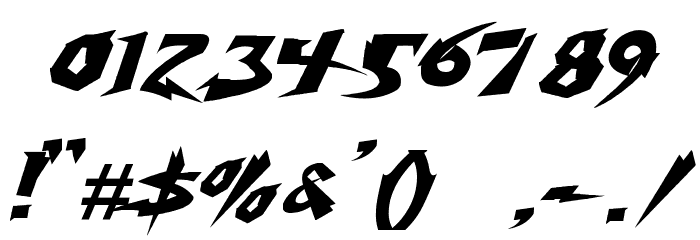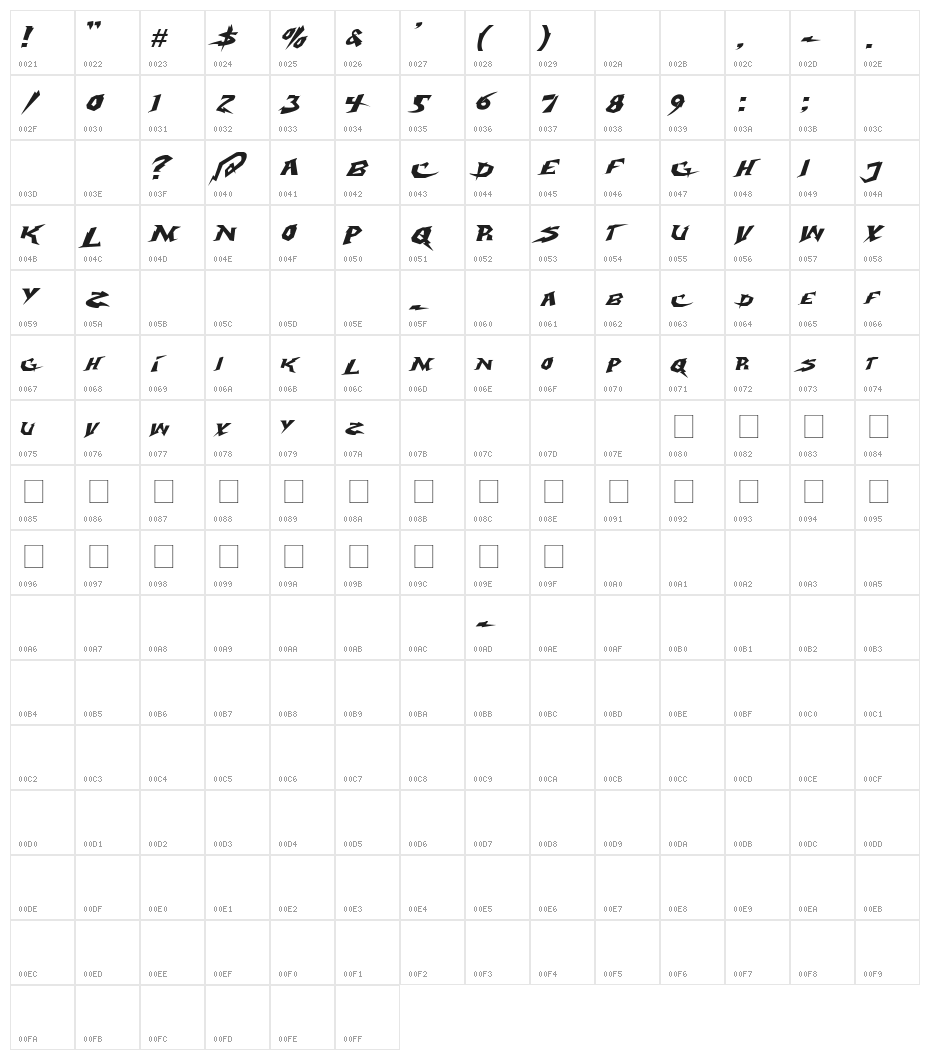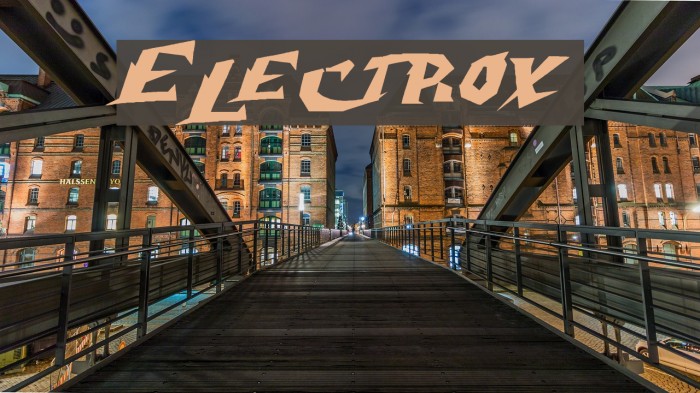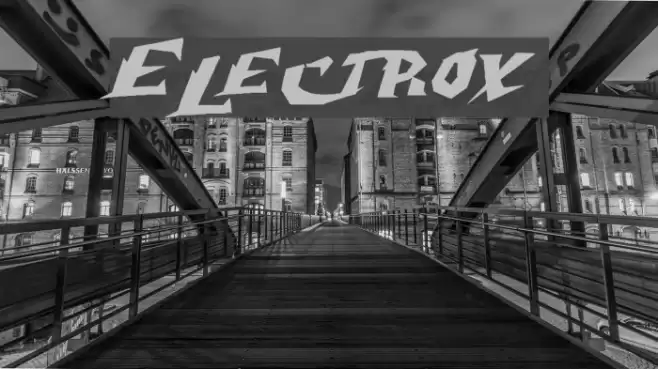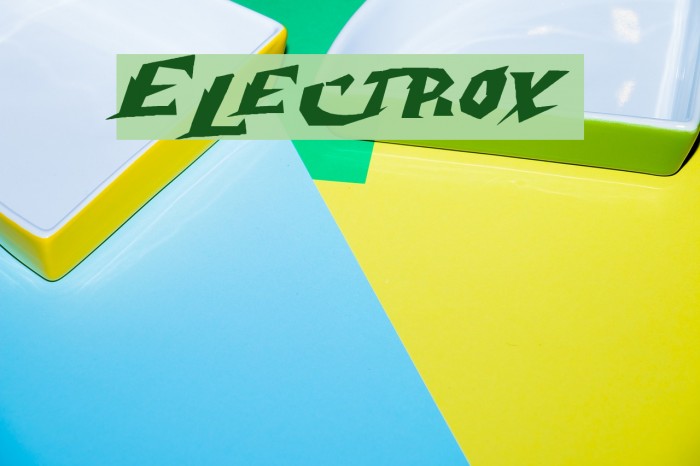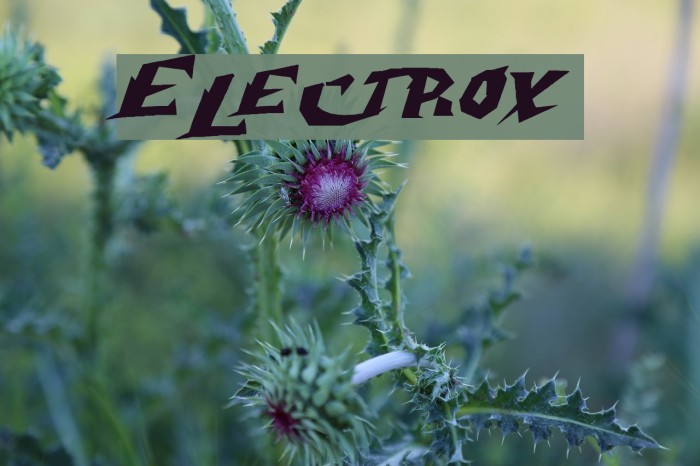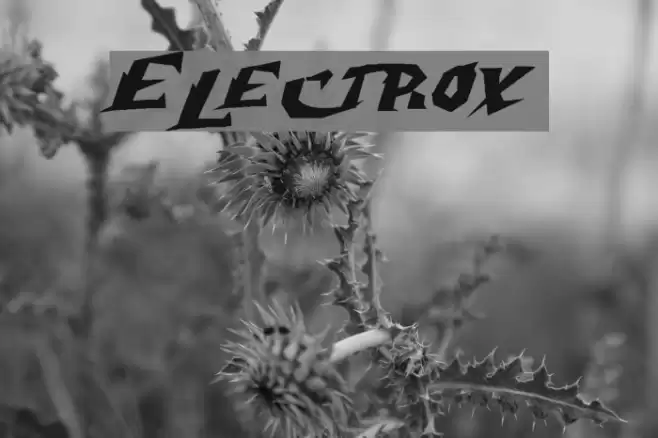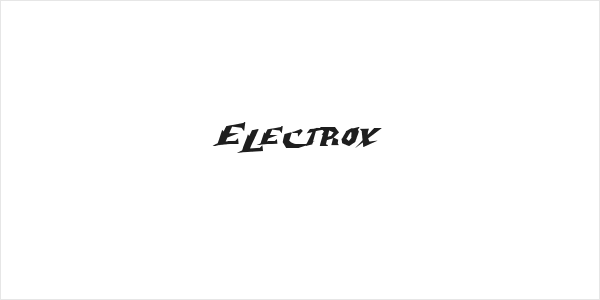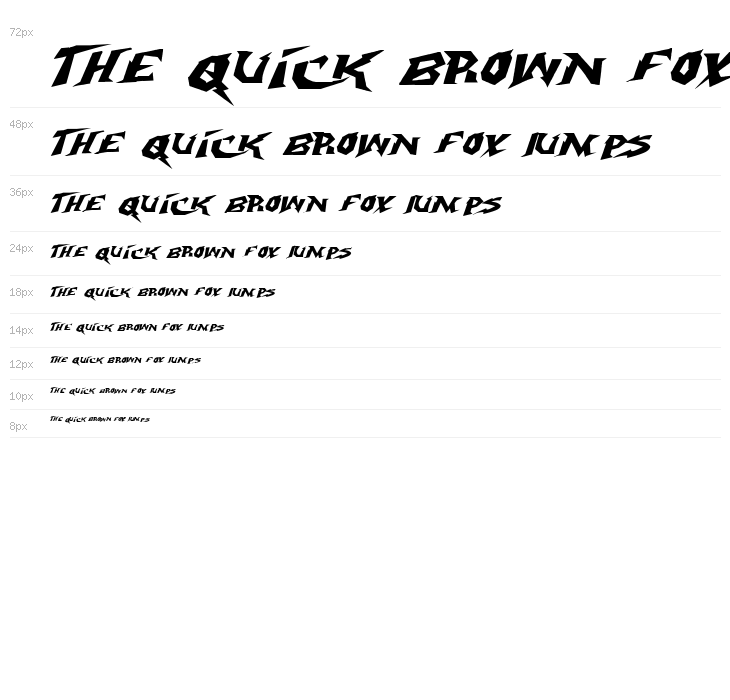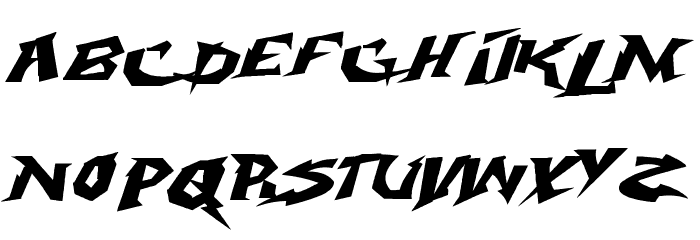
Electrox Font
Electrox Description
This font features a bold and aggressive design with sharp, angular edges and a dynamic, energetic style. The characters are heavily stylized, giving them a futuristic and edgy appearance. The strokes are thick and consistent, providing a strong visual impact. Each letter is uniquely crafted with jagged elements that create a sense of movement and intensity. The numbers and special characters follow the same design principles, ensuring a cohesive look across all glyphs. This font is ideal for projects that require a bold statement and a modern, unconventional aesthetic.
| Proposed Projects | Ideal for music album covers, video game titles, sports branding, and edgy poster designs. |